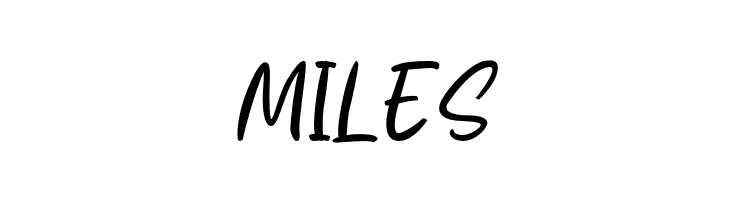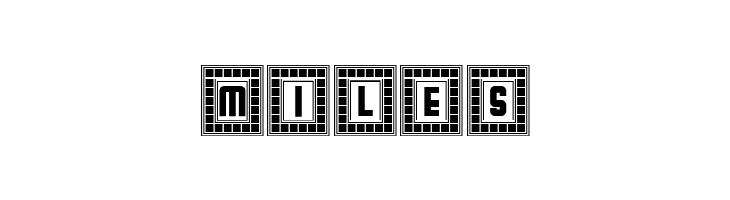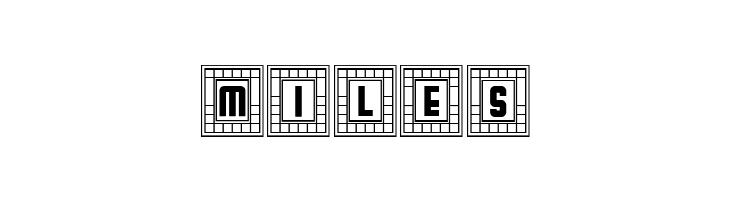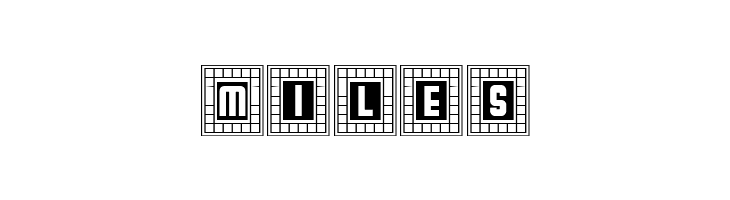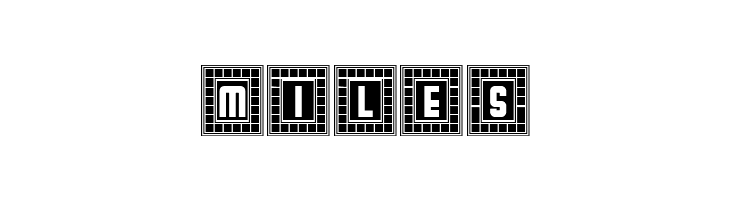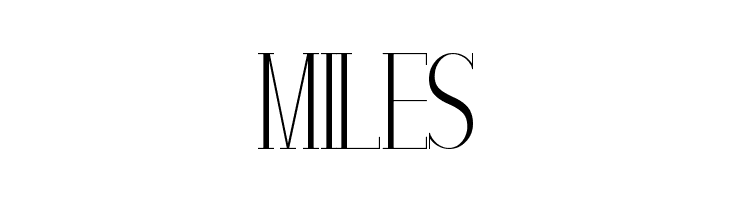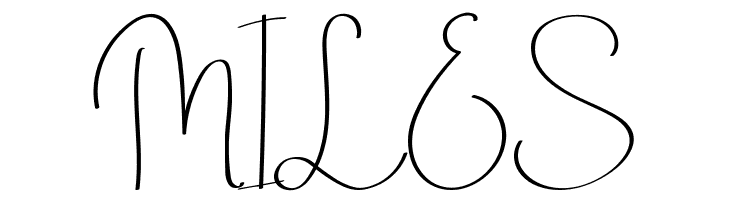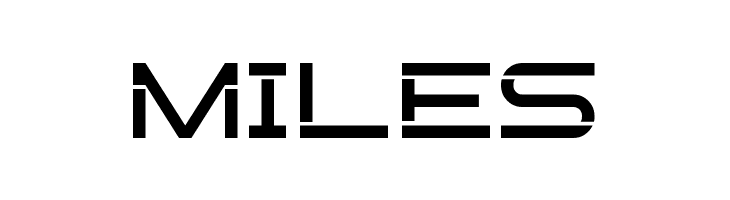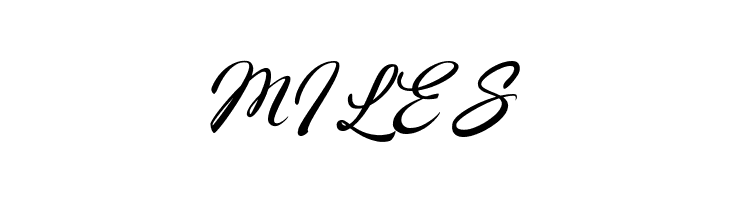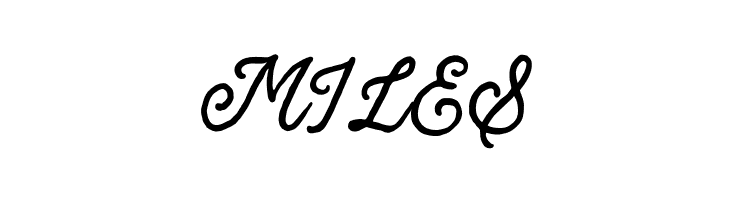
A bold, futuristic font with geometric shapes and angular design.
A bold, modern font with geometric shapes and sharp angles.
A dynamic, brush-style font with expressive strokes and an artistic flair.
A bold, modern, and geometric font with a condensed structure.
A flowing, cursive script font with elegant loops and a modern appeal.
A bold, rounded font with a playful and modern style.
A bold, geometric font with sharp angles and modern design.
A bold, geometric font with sharp angles and a modern aesthetic.
A bold, italicized typeface with a dynamic and modern style.
A bold, italic font with sharp angles and a modern, dynamic style.
A classic serif font with elegant strokes and refined details.
A bold serif font with classic styling and moderate stroke contrast.
A bold, italic serif font with elegant, flowing strokes.
An elegant serif italic font with moderate contrast and refined style.
A bold, decorative font with a vintage marquee style and unique negative space design.
A bold, decorative font with a vintage marquee light style.
A bold, decorative font with a vintage theatrical style.
A bold, decorative font with a vintage marquee style.
A sharp, elongated font with high contrast and Art Deco influences.
A bold, geometric font with Art Deco influences, ideal for dramatic and vintage designs.
A bold, geometric font with art deco influences, perfect for striking headlines.
A bold, decorative font inspired by classic Broadway marquees, featuring dotted outlines.
A distressed, textured font with a vintage, rugged appearance.
A modern, geometric font with angular lines and unique cut-out sections.
A modern, geometric font with sharp angles and a futuristic aesthetic.
A dynamic handwritten font with fluid strokes and elegant style.
A bold, hand-drawn style with rough, textured edges and dynamic strokes.
A bold, textured font with a hand-drawn, energetic style.
An elegant, high-contrast font with tall, narrow letterforms.
A whimsical and elegant script font with flowing lines and playful curves.
A sophisticated script font with flowing, cursive letters and elegant curves.
A bold, modern typeface with clean lines and uniform stroke width.
A modern, geometric font with clean lines and balanced proportions.
A dynamic and elegant script font with smooth, cursive strokes.